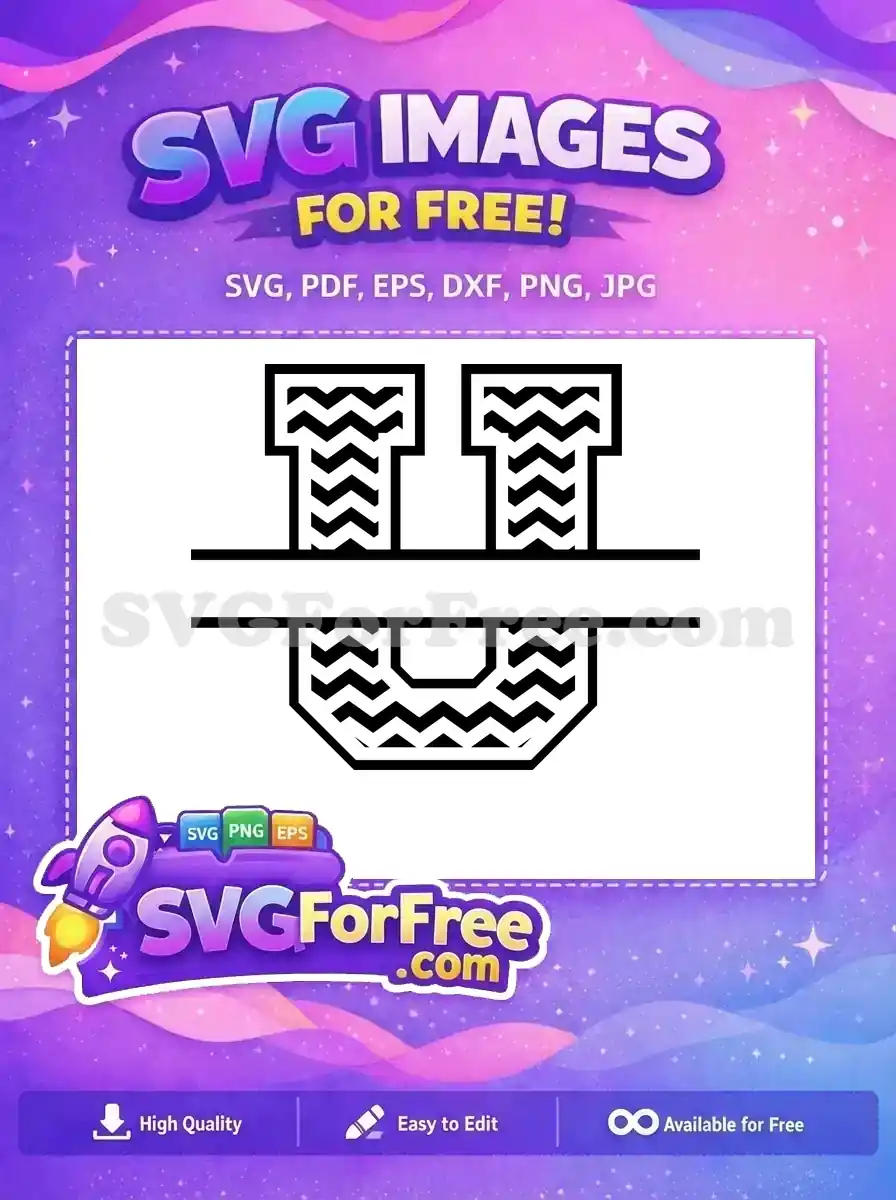
Free Black Zigzag Font Free Split Monogram Initial Free SVG – Instant Download
Varsity style letter U monogram with stripes and outline, available as a sporty free vector for apparel.
Free Black Zigzag Font Free Split Monogram Initial Free SVG